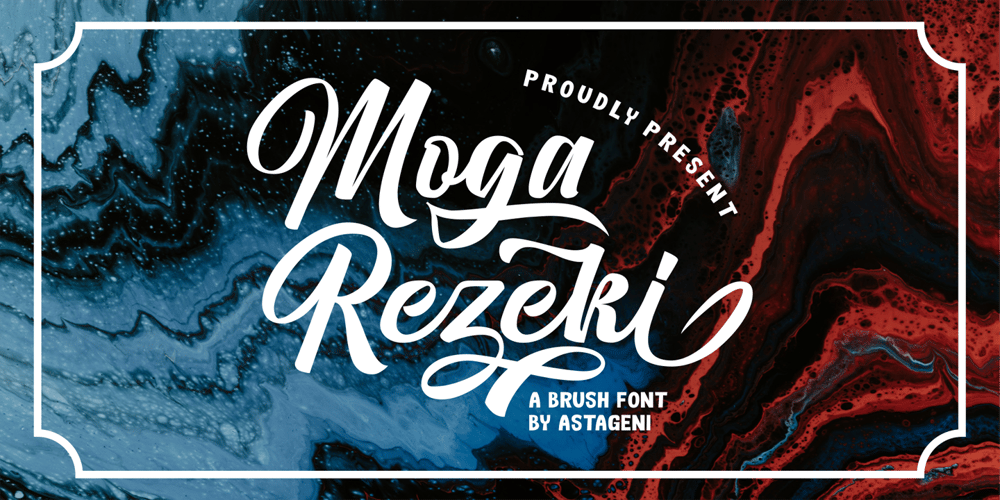
Moga Rezeki
Moga Rezeki font
Moga Rezeki Font Family was designed by Nur Solikh and published by Astageni. Moga Rezeki contains 1 styles and family package options. Moga Rezeki, inspired by Calligraphy and using a crayola brush pen, contains many alternatives for the lowercase section. Moga Rezeki is perfect for posters, fashion, branding and more.